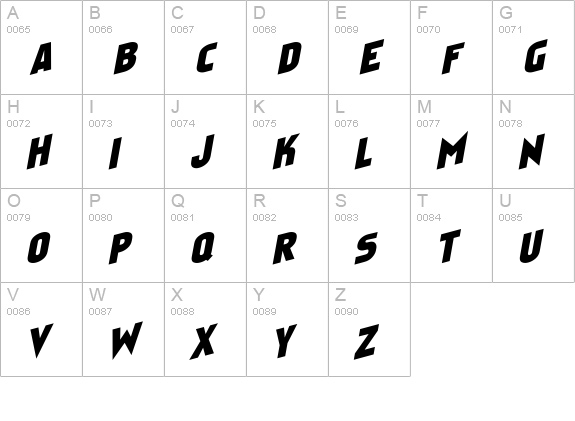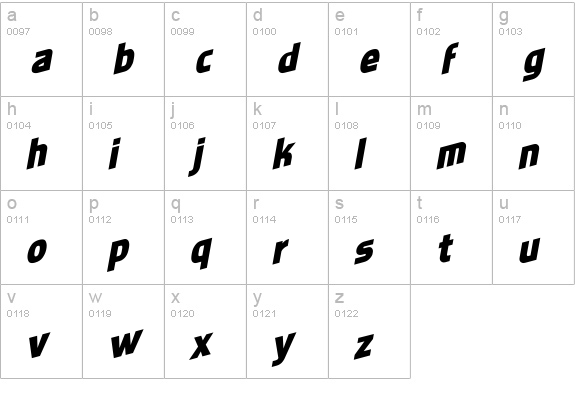
Faktosas Slanted Normal Font Details
Faktosas Slanted Normal is the standard, neutral variant in the Faktosas typeface family \xE2\x80\x94 well suited to general body text, paragraphs, and standard typographic work.
Faktosas Slanted Normal font is a sleek and modern typeface that exudes sophistication and style. With its unique slanted design, this font adds a touch of elegance to any project. The clean lines and sharp edges make it perfect for a variety of purposes, from branding to editorial design. What sets Faktosas Slanted Normal font apart is not only its aesthetic appeal, but also its versatility. Whether you're creating a logo, designing a website, or crafting a poster, this font will make your text stand out in a subtle yet impactful way. And the best part? Faktosas Slanted Normal font is available for free download at FontsMarket.com. You can easily access this font and use it in your projects without any cost. So why wait? Add Faktosas Slanted Normal font to your collection today and elevate your designs to the next level.